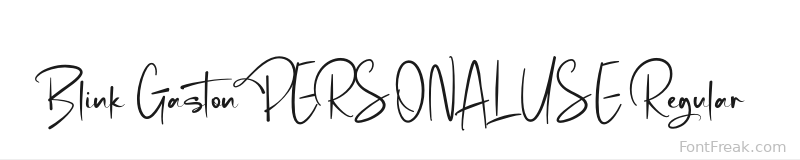
Blink Gaston PERSONAL USE Regular
About Blink Gaston PERSONAL USE Regular
Blink Gaston PERSONAL USE Regular is a captivating handwritten font designed by Mans Greback, perfect for those seeking a personal touch in their projects. This font falls under the script category, showcasing fluid, cursive strokes that evoke a sense of warmth and creativity. The stroke weight is consistent yet dynamic, providing an engaging visual flow, while the moderate contrast between thick and thin lines adds depth to the characters. The spacing is well-balanced, ensuring readability while maintaining an artistic flair.
This font is ideal for a variety of use cases. It shines in wedding invitations, where its elegant curves can convey romance and sophistication. Additionally, it works beautifully for crafting personalized greeting cards, giving each message a heartfelt touch. Movie posters can also benefit from its distinctive style, making titles stand out with a unique flair that captures attention. For small businesses, using Blink Gaston on restaurant menus or boutique signage can create an inviting atmosphere, enhancing the overall customer experience.
Target audiences for this font include graphic designers looking to add a personal touch to their creations, small business owners aiming to differentiate their brand, and content creators wanting to infuse personality into their digital media. The font's charming design resonates well with anyone in need of a creative solution for their projects.
What truly sets Blink Gaston PERSONAL USE Regular apart is its ability to blend elegance with a casual vibe, making it versatile for various personal projects. Whether you're designing a heartfelt invitation or a striking poster, this font brings a unique character that elevates your work. For those interested, you can find the Blink Gaston PERSONAL USE Regular font free download, making it accessible for your next creative endeavor.